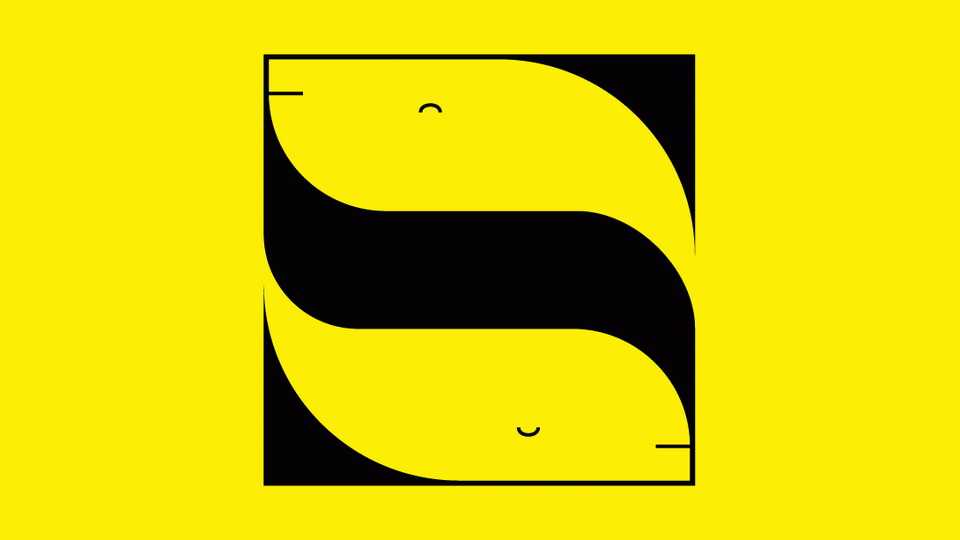
Download Cute Chars font, a creative display typeface designed during 36 Days of Type. Each letter has its own personality and discover cute characters and objects.
Designer: Cihangir Öziş